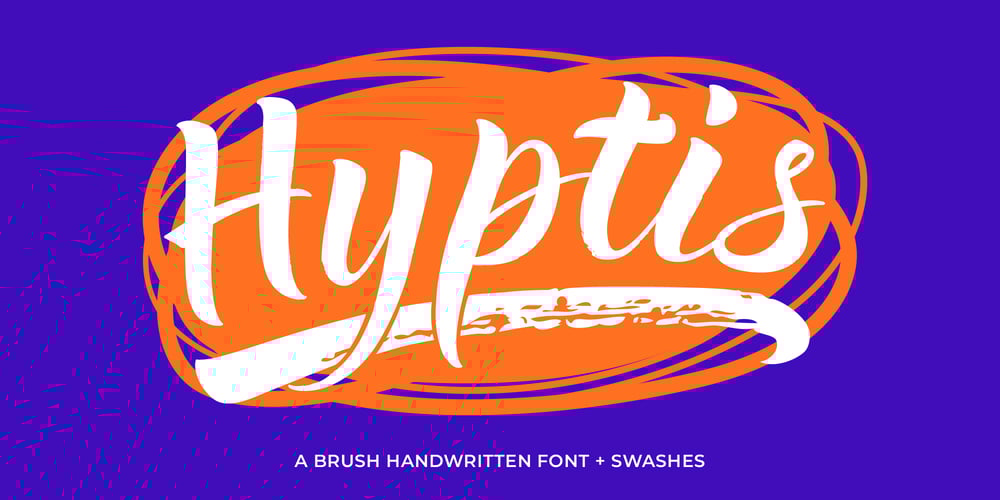
Hyptis Font Family was designed by Olga Ktitorova and published by TripleHely. Hyptis contains 2 styles and family package options. “Hi! I’m Hyptis – the script font based on brush handwriting. I was drawn with a soft, wet brush and digitally cleaned with care, but some of my characters keep their natural texture. If you are looking for a font for logos, postcards, product packaging, quotes, text overlays – or anything else – I am a good choice!”Hyptis has two types of embedded auto-replacement: lowercase letters without connecting strokes (for a case of the last character of the word), and ligatures (for a case of two letters that do not pair well together). These features work well in many apps (even simple ones like Notepad/TextEdit), and if you need to customize their application – you could use programs that support OpenType features (for example, Adobe apps or CorelDraw). All these additional glyphs are PUA-encoded, so if your software does not support OpenType — you could access them through Character Map (Windows) or Font Book (Mac). Hyptis also has wide multilingual support: Western-, Central- and Eastern-European, Baltic, Turkish, Latin-type Africans, and Asian (94 languages in total). And finally, Hyptis comes with a bonus font, Hyptis Swashes, that includes a set of 26 swashes – linear, round or oval. To type it you could simply use small letters from ‘a’ to ’z’.